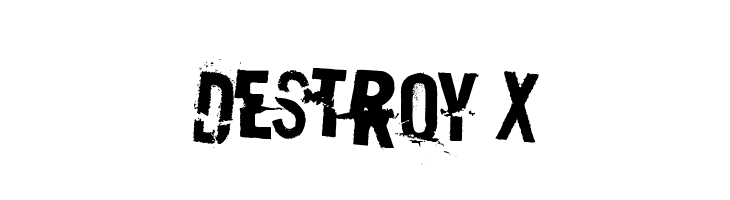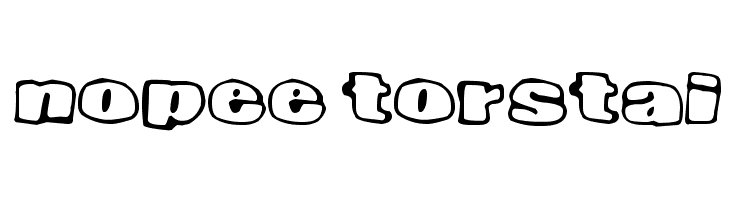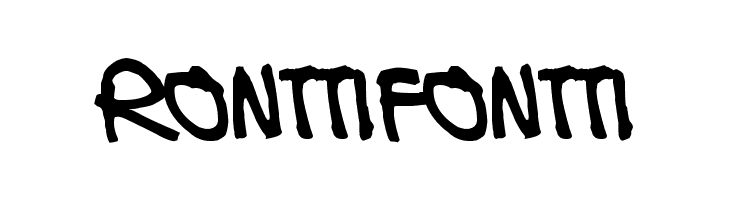
• Destroy X
A bold, distressed font with a gritty, urban aesthetic.
• Nopee Torstai
A playful, bold font with a bubble-like outline and cartoonish style.
• Whispers in the dark
A raw, expressive font with a hand-drawn, textured appearance.
• Skinny Zebra 2
A bold, playful font with a zebra-like pattern and strong contrast.
• Skinny Zebra
A playful, bold outline font with a whimsical and energetic style.
• Everything is possible
A bold, distressed font with a rugged, vintage appearance.
• Ronttifontti
A bold, graffiti-inspired font with a hand-drawn, dynamic style.
• Ronttifontti
A bold, graffiti-style font with a hand-drawn, energetic appearance.
• Spirit Ritual
A hand-drawn, rustic font with tall, narrow characters and a distressed look.
• How do you sleep?
A bold, distressed display font with a rugged, grunge aesthetic.